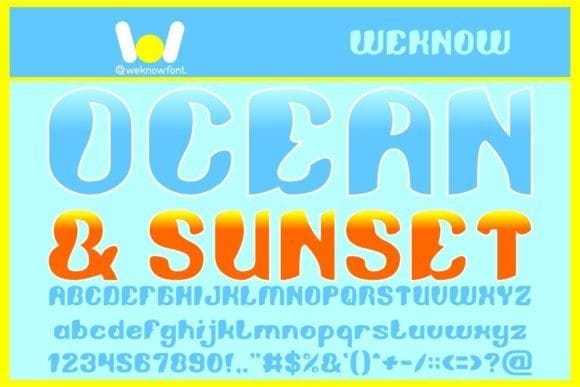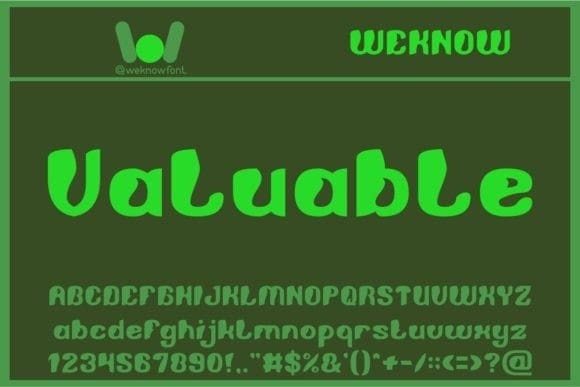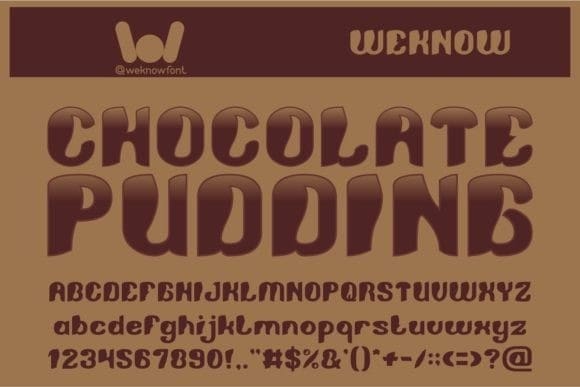
Chocolate Pudding Font
Chocolate Pudding Font, is a fancy and cool display font. It is the best choice for creating eye-catching logos, branding, and quotes. Every letter has a unique and beautiful touch, which will make your design come alive!